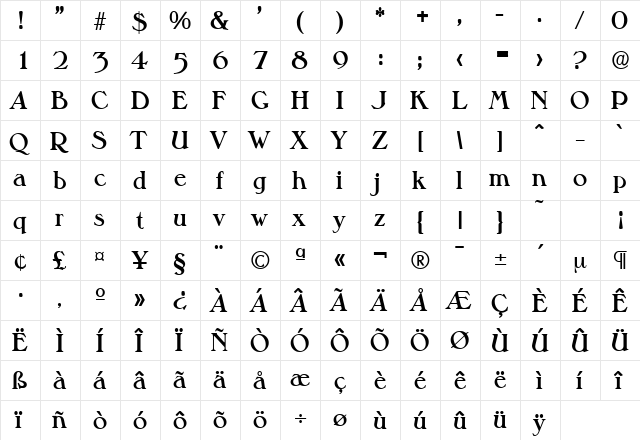
Melbourne-Serial DB Bold Font Preview
Melbourne-Serial DB Bold
Melbourne-Serial DB Bold Font Details
Design Context for Melbourne-Serial DB Typeface
Melbourne-Serial DB takes a measured approach to typography — its balanced proportions and neutral character make it a reliable workhorse for both digital and print work. Its bold stroke weight gives it real presence on the page.